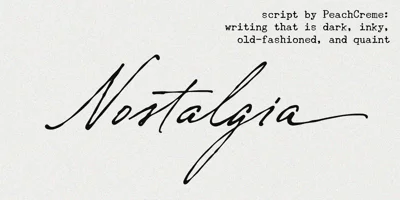
Nostalgia Peach Creme Font
Nostalgia Peach Creme Font is perfect for vintage wedding invitations, romantic greeting cards, boutique bakery branding, feminine lifestyle blogs, retro beauty products, handcrafted artisan packaging, soft romantic campaigns, pastel-themed designs, vintage tea shop materials, and dreamy projects that celebrate gentle nostalgia and sweet feminine charm.
What makes Nostalgia Peach Creme Font truly exciting is its delicate balance of vintage sweetness and romantic sophistication that evokes warm memories of gentle summer afternoons and cherished feminine traditions. This exceptional typeface captures the essence of soft romanticism with its graceful letterforms and tender character shapes that convey both nostalgic warmth and contemporary elegance. The font's dreamy personality and vintage-inspired charm make it perfect for brands seeking to create emotional connections through gentle beauty and timeless feminine appeal.
The Nostalgia Peach Creme Font family includes multiple weights and styles: Light, Regular, Medium, Script, and Decorative variations that enhance the romantic vintage character. Each family member maintains the distinctive peachy sweetness while offering flexibility for diverse feminine applications and romantic branding systems. The comprehensive character set supports elegant typography needs and decorative design elements, making it suitable for international romantic communications.
When you choose Nostalgia Peach Creme Font, you're selecting a typography treasure that transforms ordinary messages into sweet romantic experiences. This charming typeface excels in applications where gentle nostalgia and feminine elegance are essential, delivering exceptional emotional warmth while maintaining sophisticated appeal. Whether you're designing wedding materials, beauty brands, artisan products, or romantic campaigns, this font provides the vintage sweetness and feminine sophistication that resonates with audiences who appreciate gentle beauty, romantic traditions, and nostalgic charm.